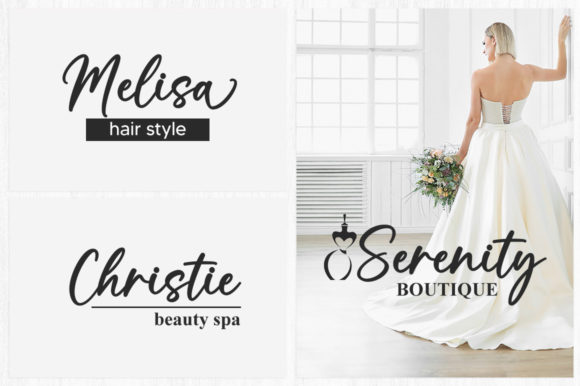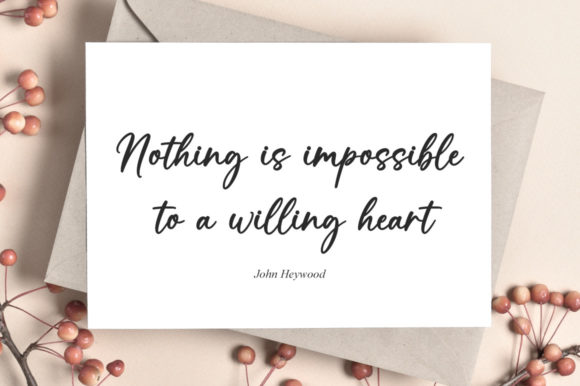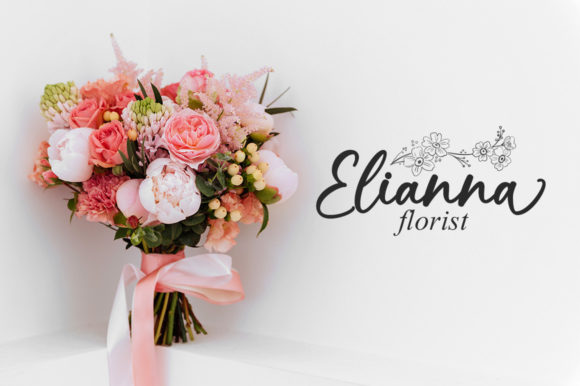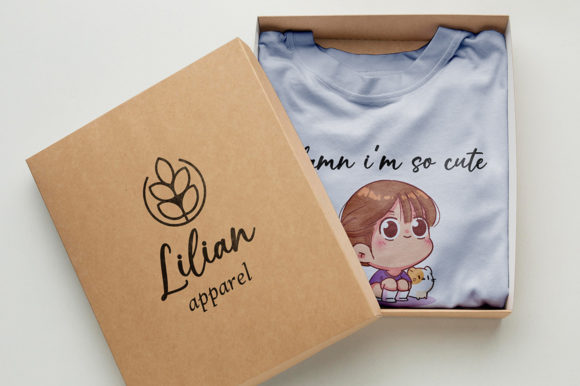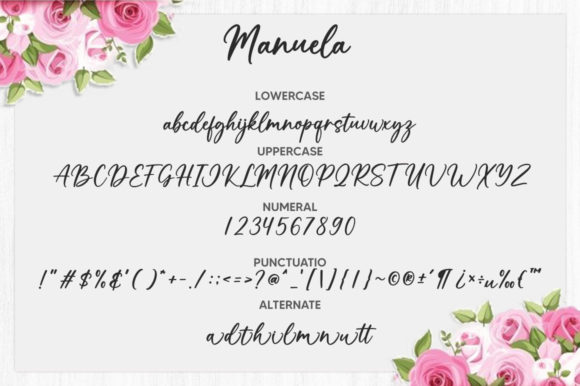
Manuela Font
About Manuela Font
Manuela is a stylish and incredibly elegant script font. It looks lovely on wedding invitations, thank you cards, quotes, greeting cards, logos, business cards and more.